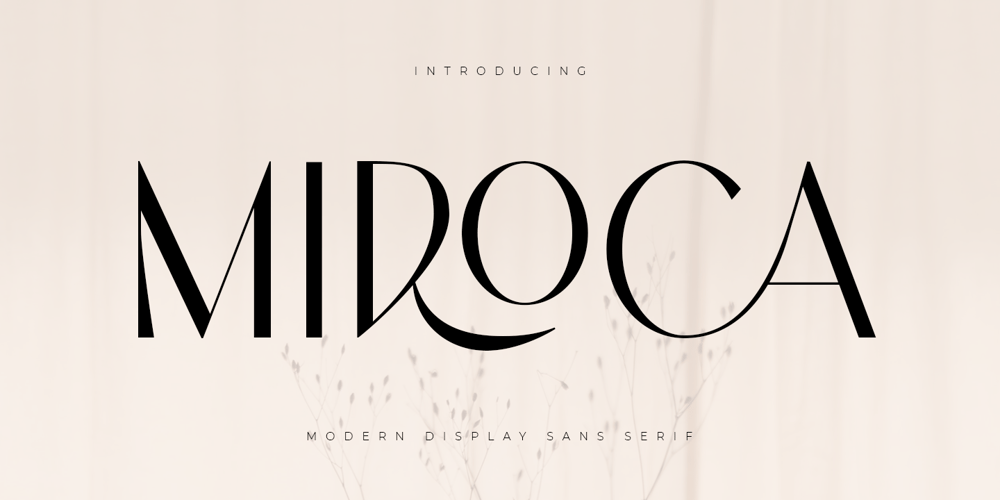
Miroca Font Family was designed by Zamroni Hamzah and published by Sensatype Studio. Miroca contains 1 styles and family package options. A Sans serif that we created special for elegant branding needs, with extra ligature and alternates in unique shape will be ready to add value of your brand. It so nice to leverage designer or product owner that need solutions to make their design look more classy and modern. And specially for this font, We prepared any ligatures characters to help you create unlimited variations for your creative needs.Miroca Sans serif font ready with: Any options to get creative variations (combination of Alternate and Ligatures) 4 files of each weights format already Preview as a inspirations that you can do with Miroca font Ready with Lowercase and Uppercase characters Wish you enjoy our font. ๐